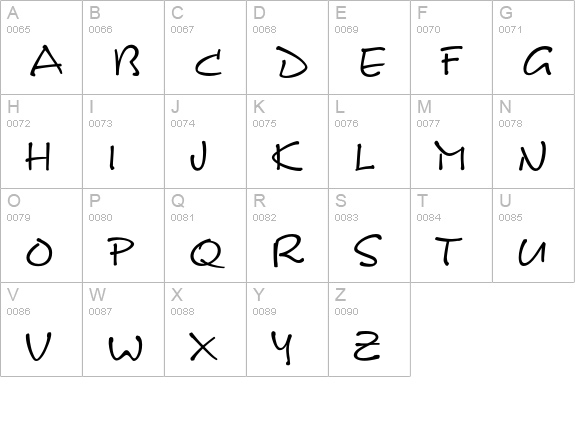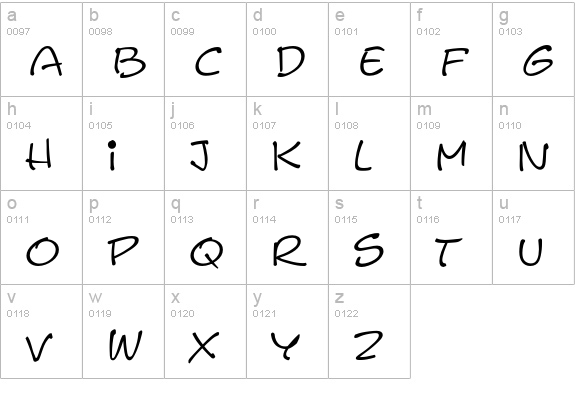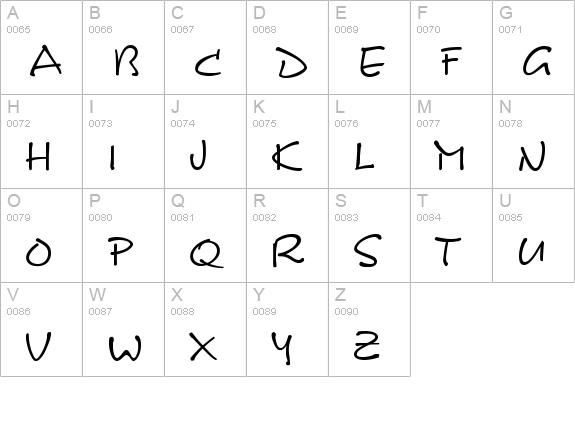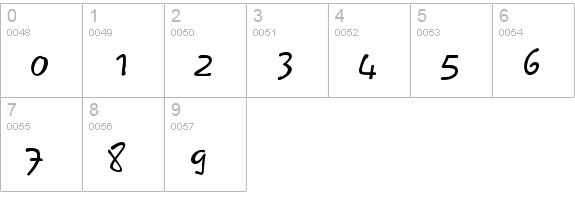
Leasterix-Regular Font Details
Leasterix-Regular is the standard, neutral variant in the Leasterix typeface family \xE2\x80\x94 well suited to general body text, paragraphs, and standard typographic work.
Introducing Leasterix-Regular, a versatile and modern font that will bring a touch of elegance to any design project. With its clean lines and balanced proportions, this font is perfect for creating eye-catching headlines, stunning logos, or sophisticated branding materials. Leasterix-Regular is a free font that offers a wide range of glyphs, including uppercase and lowercase letters, numbers, and special characters. Its well-crafted design ensures legibility at any size, making it suitable for both print and digital applications. Whether you're a professional designer or simply a typography enthusiast, Leasterix-Regular is sure to impress. Its timeless appeal and unique personality make it a versatile choice for a variety of design projects, from websites and advertisements to packaging and invitations. Best of all, Leasterix-Regular is freely available to download at FontsMarket.com. With just a few clicks, you can add this stunning font to your collection and start using it in your creative endeavors. Don't miss out on the opportunity to elevate your designs with the beauty and versatility of Leasterix-Regular.